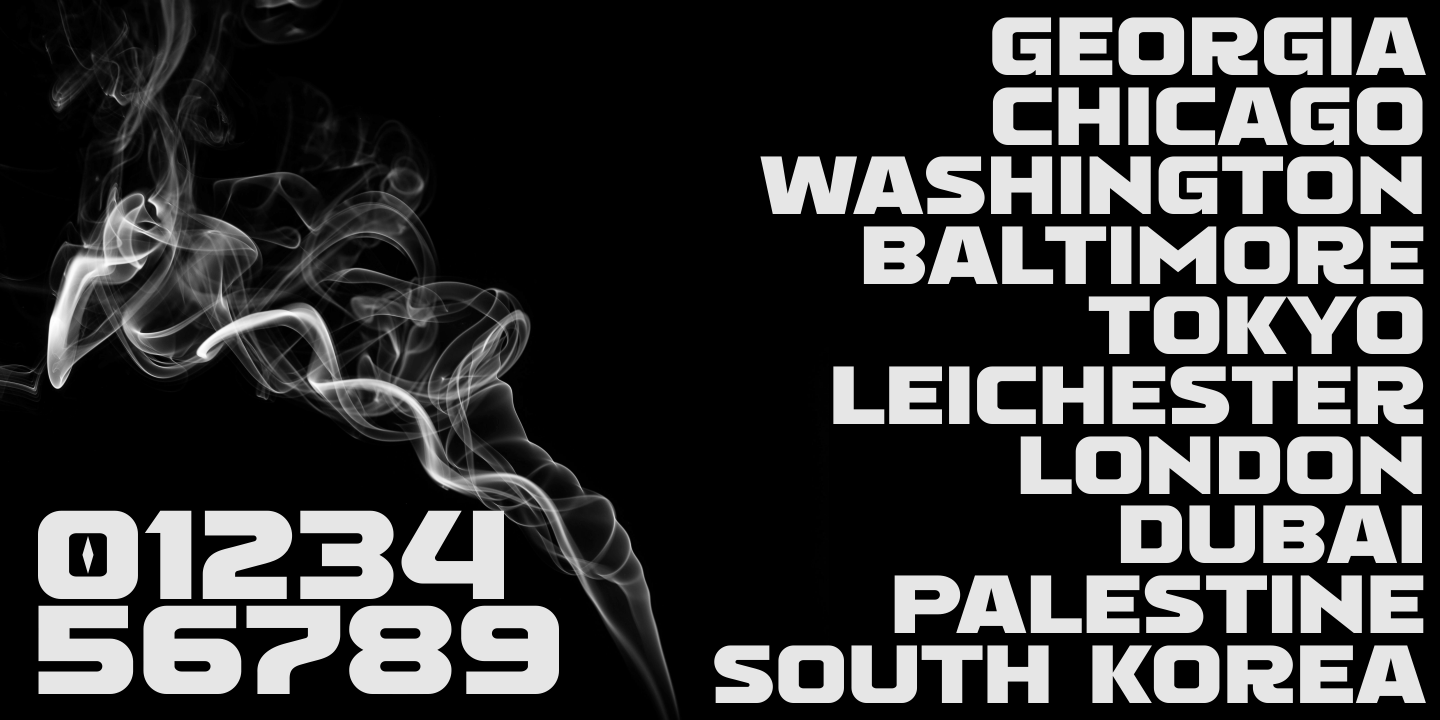
Gover is a new multipurpose display font created by Bagerich Type Foundry.
It features a combination of futuristic and urban inspiration and includes a regular style in uppercase, plus a stencil style in lowercase. It’s well suited for use in the posters, logos, titles, packaging, web design, apps & much more.